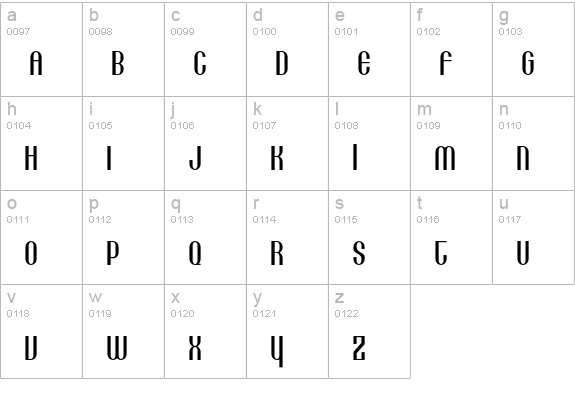
Lithia-LightSmallCaps Font Details
Lithia-LightSmallCaps is a sophisticated and elegant font that exudes a sense of modernity and style. With its sleek and refined design, this font is perfect for adding a touch of class to any project. The delicate curves and sharp lines of Lithia-LightSmallCaps create a harmonious balance that is visually appealing and easy on the eyes. What sets Lithia-LightSmallCaps apart is not only its aesthetic appeal but also the fact that it is available for free download at FontsMarket.com. This means that you can effortlessly incorporate this stunning font into your designs without any additional cost. Whether you're working on a branding project, website design, or any other creative endeavor, Lithia-LightSmallCaps is sure to elevate your work to the next level. Download Lithia-LightSmallCaps today from FontsMarket.com and experience the beauty and versatility of this exquisite font for yourself. Let Lithia-LightSmallCaps be the perfect addition to your design toolkit, and watch as your projects come to life with a touch of sophistication and flair.